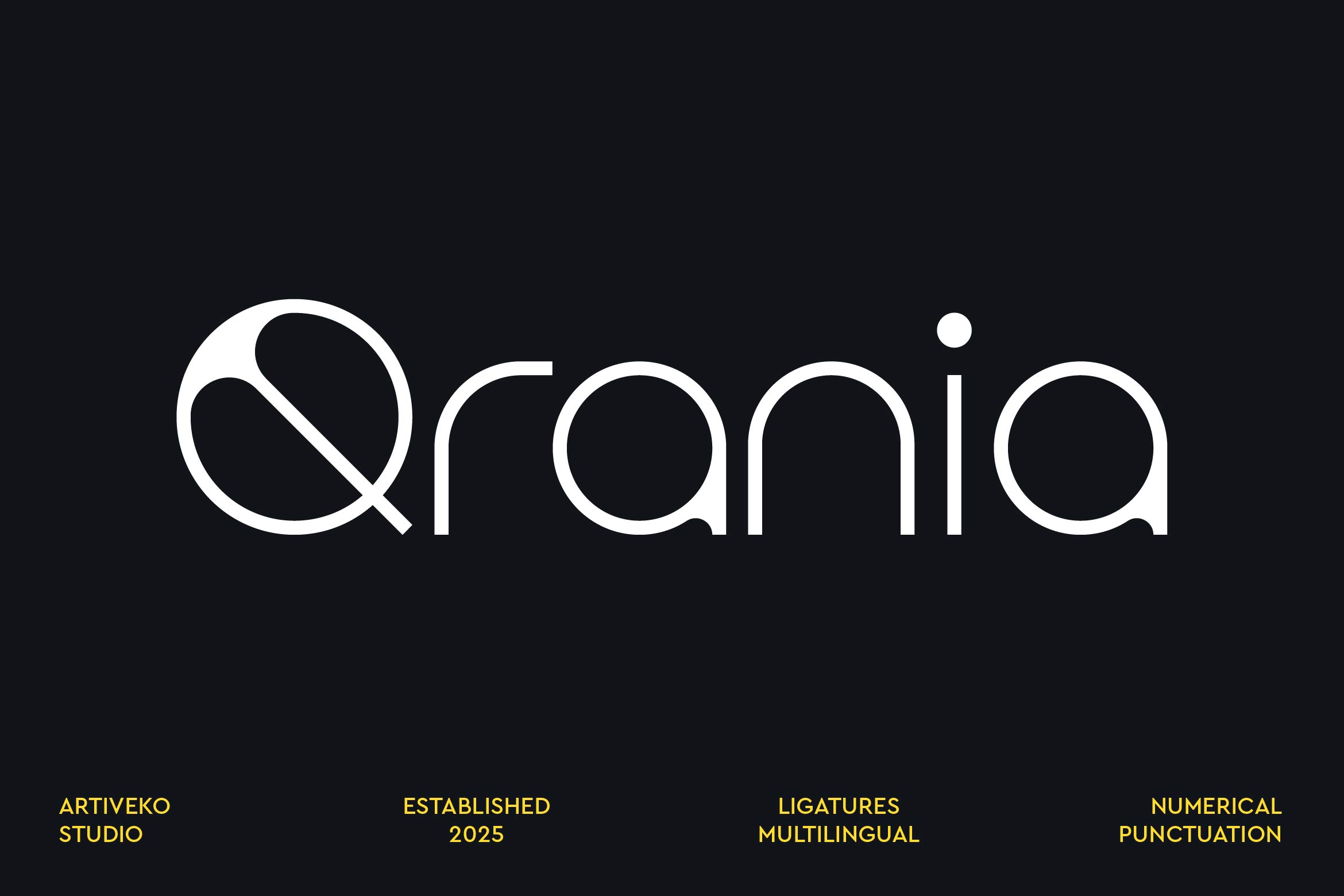
- Qrania Minimalist Sans Font
Qrania is a clean and refined sans serif font designed to bring elegance and simplicity to your typography. With its smooth curves, balanced proportions, and geometric precision, Qrania works beautifully for branding, editorial layouts, packaging, websites, and social media graphics that demand a sleek, contemporary touch.
Its minimalist construction ensures excellent readability while delivering a stylish and timeless look. Ideal for fashion, tech, lifestyle, and creative industries, Qrania adapts perfectly to both bold headlines and subtle text applications.
The font includes uppercase and lowercase letters, numerals, punctuation, multilingual support, and stylistic alternates for flexible and unique design options.
Elevate your projects with Qrania — the minimalist sans serif that merges clean aesthetics, modern design, and professional clarity.